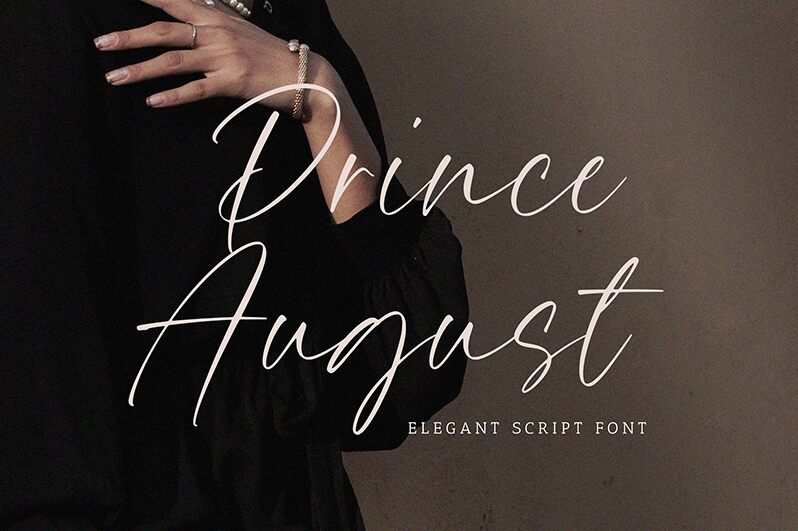
معاينة خط Prince August
Prince August font is a contemporary handwritten font designed by Timur Type. Its light letters exhibit smooth flowing curves that give it an elegant, sophisticated, and fluid nature. Stylish and graceful, the font combines classic elements with modern ones making it a perfect choice for elegant typography projects.
Free to download, this exquisite typeface can upgrade your branding design projects including logos and packaging. It suits advertising campaign texts as well for beauty products, perfumes, jewelry or watches. Prince August can also elegantly display personal use on invitations, postcards or social media post images.